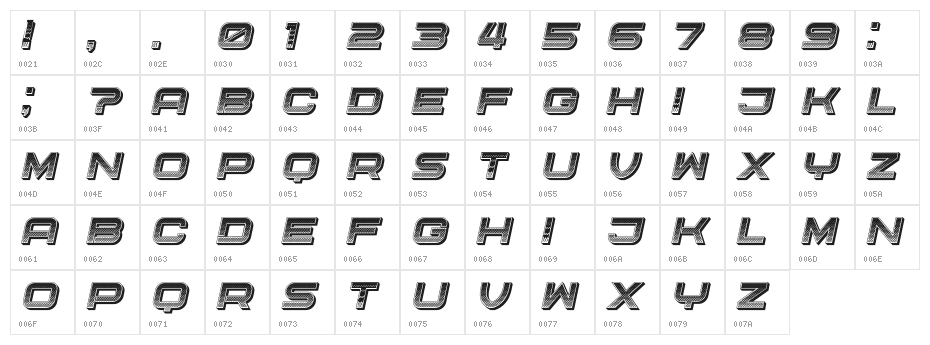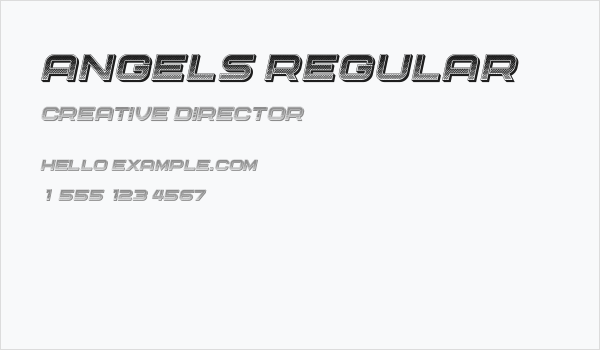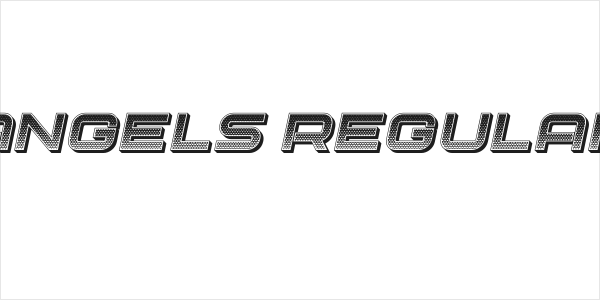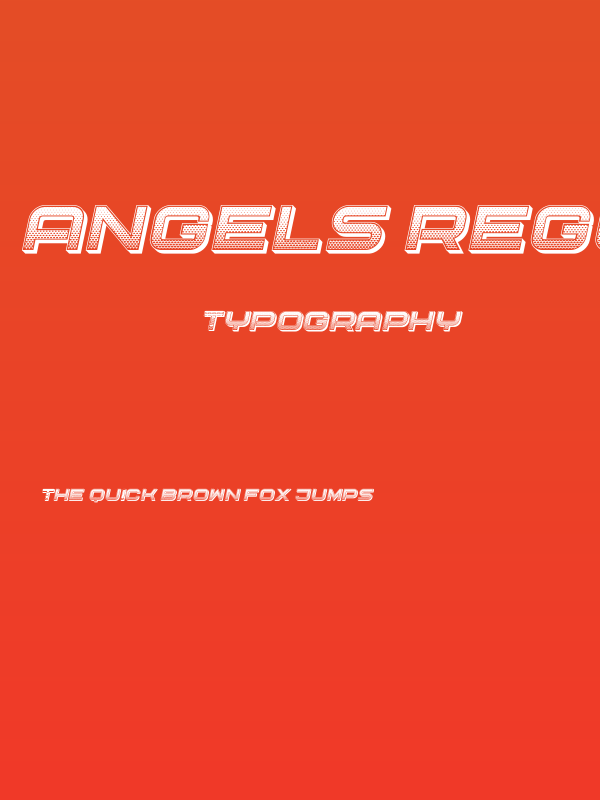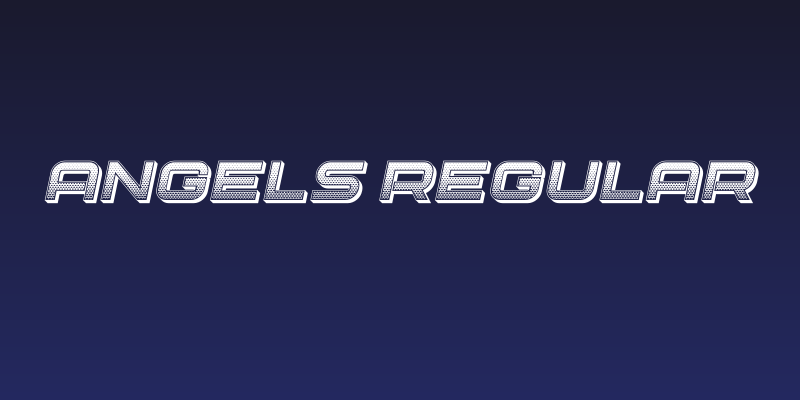
Angels Regular Font
Angels Regular Description
This font features a bold, futuristic design with a distinct 3D effect created by a dotted pattern within each character. The uppercase letters are angular and geometric, giving a sense of movement and speed. The numbers and special characters maintain this dynamic style, making the font suitable for attention-grabbing headlines or logos. The consistent use of the dotted texture adds a unique visual interest, setting it apart from more traditional fonts.
| Proposed Projects | Ideal for sports branding, video game titles, or tech-related logos. |